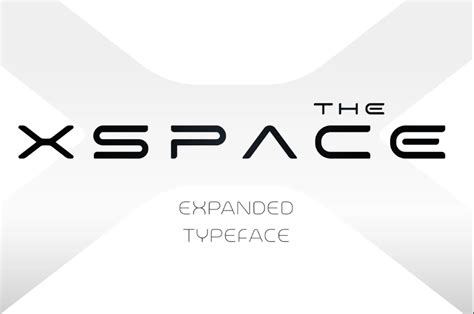
Hey guys! Ever wanted to give your designs a touch of the cosmos? Well, you’re in luck because today we’re diving deep into the universe of space font download options. Whether you’re creating a sci-fi movie poster, a gaming logo, or even just a cool social media graphic, the right font can make all the difference. We’re talking about fonts that evoke nebulae, distant galaxies, futuristic technology, and the sheer wonder of the unknown. Getting your hands on these awesome fonts is easier than you think, and we’re here to guide you through it. Let’s blast off into the best places to find and download fonts that are literally out of this world!
Exploring the Cosmic Typography Universe
When we talk about space font download , we’re opening up a galaxy of creative possibilities. Think about the iconic fonts used in Star Wars , Star Trek , or even the sleek, futuristic text in modern sci-fi films. These aren’t just letters; they’re design elements that instantly communicate a theme. You might be looking for something that’s sleek and minimalist, perhaps with sharp edges and a metallic sheen, or maybe something more abstract and ethereal, like swirling cosmic dust. Some fonts are designed to look like they’re made of stars, others mimic the holographic displays seen in science fiction. The beauty of the internet is that there are countless free and premium options available, catering to every taste and project requirement. You don’t need a rocket ship to find them; just a good internet connection and a bit of know-how. We’ll cover where to find these gems, what to look out for, and how to use them effectively. So buckle up, because we’re about to embark on a journey through the most stellar typography the digital world has to offer. Finding the perfect font can sometimes feel like searching for a needle in a haystack, but with the right resources, you can discover fonts that will make your projects shine brighter than a supernova. Get ready to elevate your designs and transport your audience to another dimension with the power of cosmic fonts. It’s all about finding that unique typeface that speaks to the soul of your project and brings your vision to life in a way that’s both innovative and captivating. Remember, the font is often the first impression, so make it count!
Where to Find Your Next Stellar Font
So, where do you actually go to start your space font download adventure? The digital cosmos is teeming with websites dedicated to typography. For free options, Google Fonts is a fantastic starting point, though you might need to be a bit more creative in your search terms to find space-themed fonts. Websites like DaFont and Font Squirrel are absolute goldmines for free fonts, often with categories or tags that can help you narrow down your search. You’ll find everything from retro sci-fi styles to modern, minimalist futuristic designs. Just be sure to check the licensing agreements for any free font you download; some are free for personal use only, while others allow for commercial projects. For premium, high-quality fonts, sites like MyFonts, Creative Market, and FontFabric offer a vast selection of professionally designed typefaces. These often come with extensive licensing options and support, making them ideal for professional designers and businesses. When browsing these sites, use keywords like ‘sci-fi’, ‘futuristic’, ‘space’, ‘galaxy’, ‘tech’, ‘cyberpunk’, or ‘cosmic’. You might even stumble upon ‘alien’ or ‘robot’ fonts, which can also fit the space theme perfectly. Don’t be afraid to explore different foundries and designers; many talented individuals create incredible themed fonts that you won’t find elsewhere. Keep an eye out for fonts that have a good range of weights and styles (bold, italic, etc.) as this will give you more flexibility in your design work. The key is to explore, experiment, and download a few options to see which one best fits the vibe you’re going for. Sometimes the best font is one you discover by accident, so keep your eyes peeled and your download button ready!
When you’re on the hunt for the perfect space font download , you’ll notice a few recurring styles that really nail the cosmic aesthetic. First up, we have the Futuristic Sans-Serifs . These are often characterized by clean lines, geometric shapes, and sometimes sharp, angular terminals. Think of the sleek interfaces in Minority Report or the navigation displays in Star Citizen . They convey a sense of advanced technology, precision, and forward-thinking design. They’re incredibly versatile and work well for titles, headings, and even body text if they’re legible enough. Then there are the Retro Sci-Fi Fonts . These fonts often have a vintage, B-movie feel, inspired by 1950s and 60s science fiction. They might feature exaggerated serifs, quirky shapes, or a distinctly mechanical look. They’re perfect for projects that want to evoke nostalgia or a more playful take on space exploration. Alien or Organic Fonts are another category, designed to look otherworldly and unconventional. These might feature irregular shapes, unique letterforms, or textures that suggest alien biology or strange cosmic phenomena. They’re great for adding a touch of mystery and the truly unknown to your designs. Don’t forget the Stellar or Celestial Fonts . These are often inspired by stars, planets, and galaxies, perhaps incorporating star-like elements within the letters or having a flowing, nebulae-like quality. They bring a sense of wonder and vastness. Finally, Cyberpunk and Tech Fonts offer a grittier, more dystopian take on the future, often with digital glitches, circuit board motifs, or a heavily stylized, sometimes blocky appearance. Each of these styles brings a unique flavor to your space font download collection, allowing you to match the exact mood and theme of your project. Choosing the right style is crucial for setting the tone and ensuring your message resonates with your audience. It’s like picking the right instrument for a musical piece; the font choice significantly impacts the overall feeling.
Tips for Using Space Fonts Effectively
Once you’ve got your awesome space font download collection ready to go, it’s time to use them wisely. Remember, guys, a font is a tool, and like any tool, it needs to be used correctly to get the best results. First and foremost, readability is key . Even the most visually stunning futuristic font can ruin a design if nobody can read the text. For body text, stick to cleaner, more legible sans-serifs or highly stylized fonts that have been designed with readability in mind. Save those super unique, complex alien fonts for headings, titles, or small decorative elements. Secondly, consider the context . Is your project aiming for a serious, epic space opera feel, or is it a lighthearted, retro-futuristic adventure? Match your font choice to the tone and genre. A font that works for a gritty cyberpunk game might not be the best fit for a children’s book about stars. Thirdly, don’t overdo it . Using too many different fonts in one design can make it look cluttered and unprofessional. Stick to one or two complementary fonts – perhaps a display font for headlines and a more readable font for supporting text. Fourth, pair your fonts thoughtfully . If you’re using a bold, decorative space font for your title, choose a simple, clean font for any accompanying text. This creates visual hierarchy and ensures your main message stands out. Fifth, pay attention to spacing (kerning and tracking) . Especially with futuristic or stylized fonts, adjusting the spacing between letters and words can make a huge difference in how polished your design looks. Some fonts might need tighter tracking to feel cohesive, while others might benefit from a bit more breathing room. Finally, test your font in different sizes and applications . What looks great as a large title on a screen might be illegible when shrunk down for a business card. Ensure your chosen font performs well across all the mediums you intend to use it in. By following these tips, you can ensure your space font download choices enhance, rather than detract from, your creative vision. It’s all about making smart choices that elevate your design and communicate your message effectively and stylishly. Happy designing!
Final Thoughts on Galactic Typography
So there you have it, folks! Your ultimate guide to the exciting world of space font download . We’ve explored where to find them, the different styles you can get your hands on, and how to use them like a pro to make your projects truly shine. Remember, the right font can transform a good design into a great one, adding that extra layer of personality and theme that captures your audience’s imagination. Whether you’re aiming for the sleekness of advanced alien civilizations or the retro charm of early space exploration, there’s a font out there waiting for you. Don’t be afraid to experiment, mix and match, and most importantly, have fun with it! The universe of typography is vast and full of wonders, just waiting to be discovered. So go forth, download some stellar fonts, and create something amazing. Until next time, keep designing and keep exploring the final frontier of creativity! Your next design masterpiece might just be a font download away. Make sure to bookmark your favorite font sites and keep an eye out for new releases. The best designs often come from using unique elements that haven’t been overused, so staying curious is key. Happy font hunting!